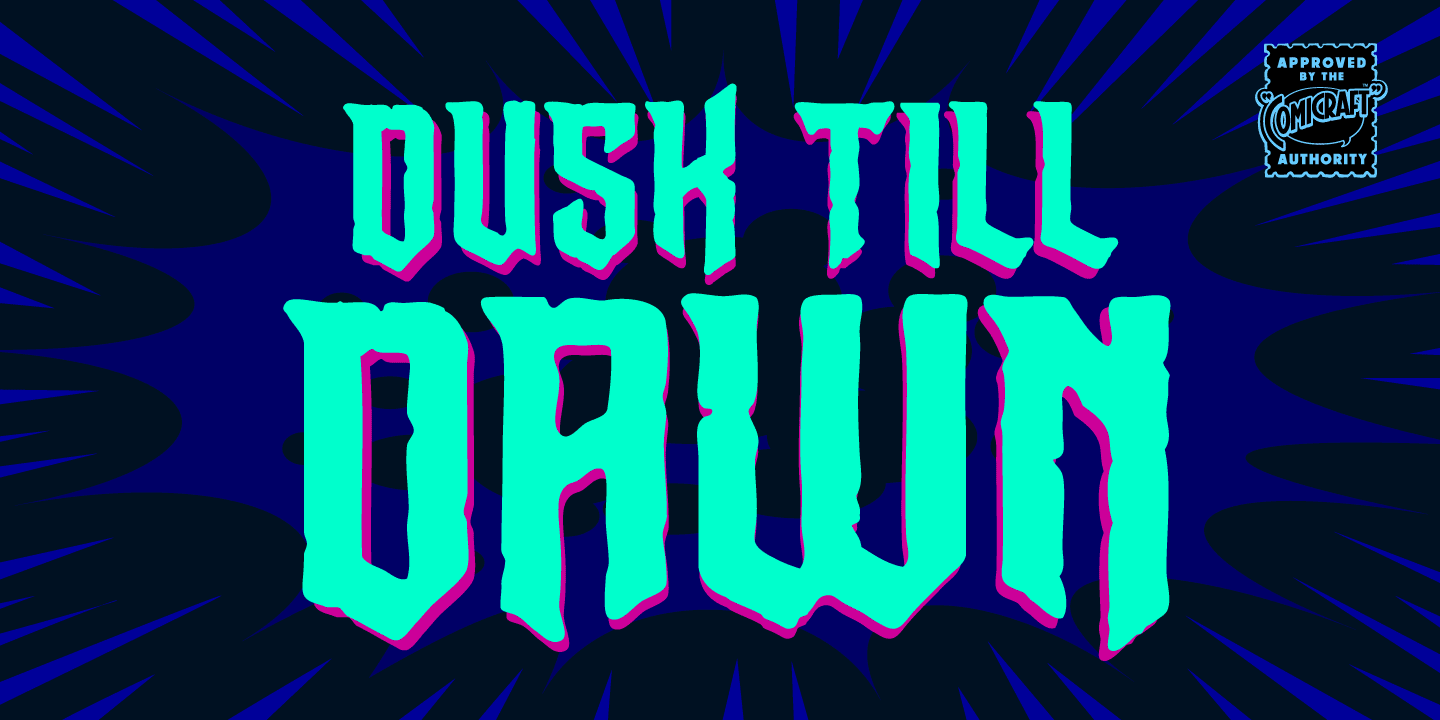
Dusk Till Dawn Font is perfect for nightclub branding, late-night entertainment venues, 24-hour service businesses, sunset event promotions, twilight photography studios, evening romance campaigns, nocturnal lifestyle brands, and all-night celebration designs. This atmospheric typeface excels in applications requiring twilight mystique and nocturnal elegance that captures the essence of transition moments and nighttime sophistication through dramatic visual character and atmospheric appeal.
What makes Dusk Till Dawn Font exciting is its captivating twilight atmosphere that perfectly captures the magical transition from day to night through dramatically styled letterforms that embody nocturnal elegance. The font features atmospheric character construction with twilight curves and evening proportions that instantly evokes feelings of mystery, romance, and nocturnal sophistication perfect for brands celebrating nighttime experiences and twilight luxury in entertainment markets.
The Dusk Till Dawn Font family includes atmospheric weights and twilight variations with evening-inspired styling elements, offering designers comprehensive tools for creating sophisticated nocturnal compositions. The family provides consistent twilight aesthetic with varying atmospheric intensity for versatile nighttime communications and evening branding projects requiring genuine nocturnal character and twilight sophistication appeal.
The atmospherically crafted letterforms of Dusk Till Dawn Font ensure excellent readability while maximizing twilight charm and nocturnal sophistication, making it ideal for nightclub marketing, evening event promotions, and atmospheric brand communications. This elegant typeface combines twilight heritage with contemporary technical standards for outstanding performance in modern design environments requiring authentic nocturnal character and sophisticated atmospheric presence.